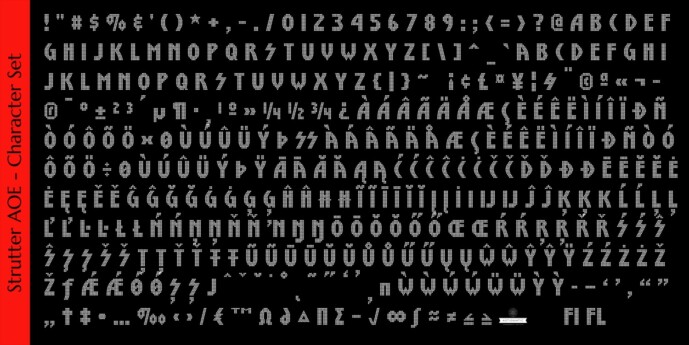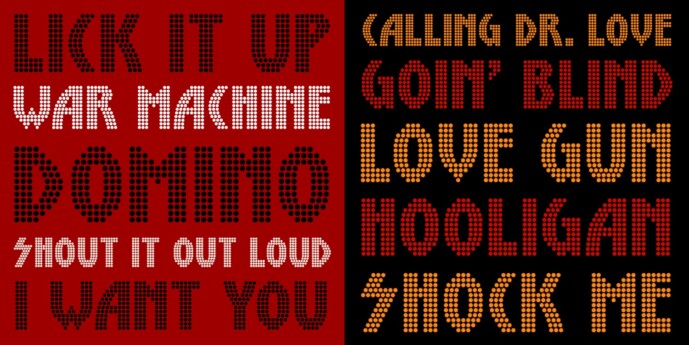
Strutter AOE Font
Designer: Brian J. Bonislawsky
Strutter AOE Font is inspired by the vintage bulb lit marquee for the iconic rockband KISS. Call it a dot matrix or a bubbledot font, but it is far from just that. It is a signature, a style, and a statement. I originally created this font back in the early 2000’s, but the dot matrix what tighter and touching. Since then, it’s been revisited with properly gapped dots, more precision in its setup and a more extensive character set, all while listening to KISS music during the development.